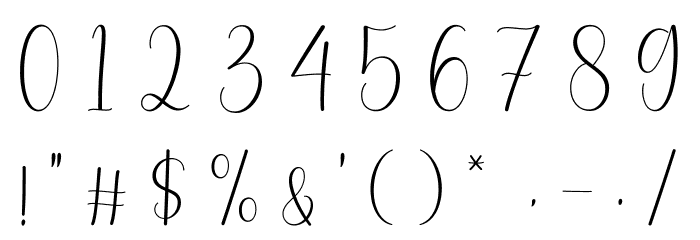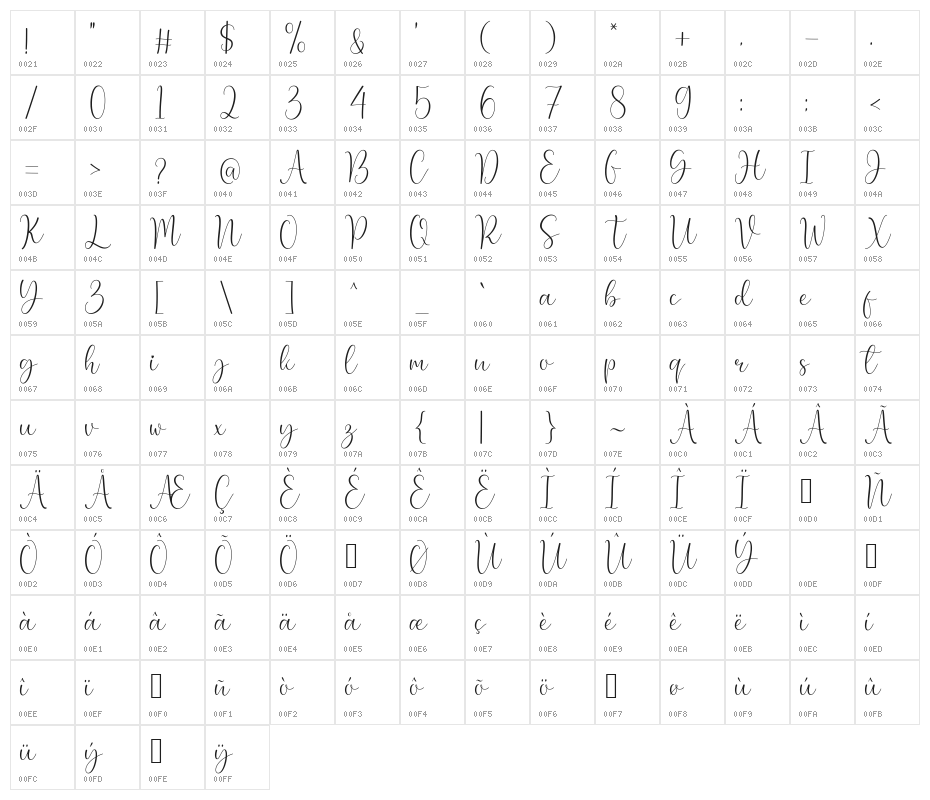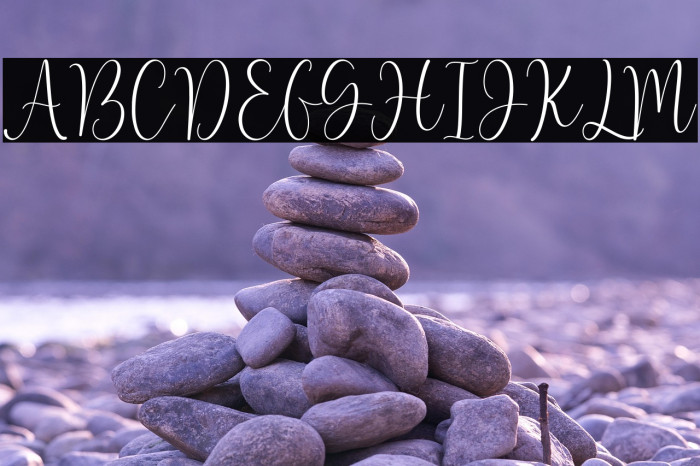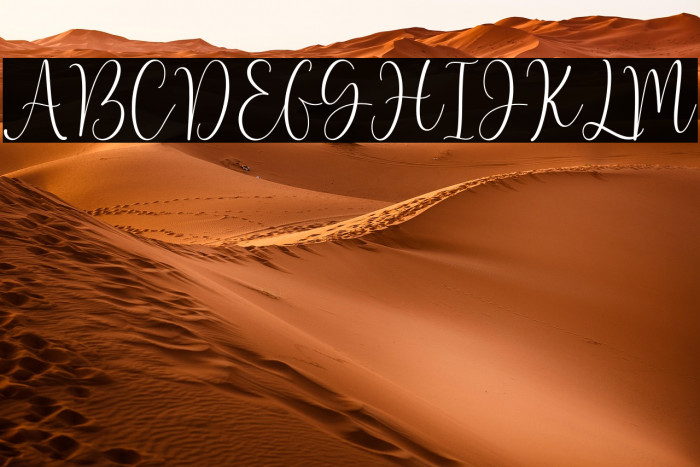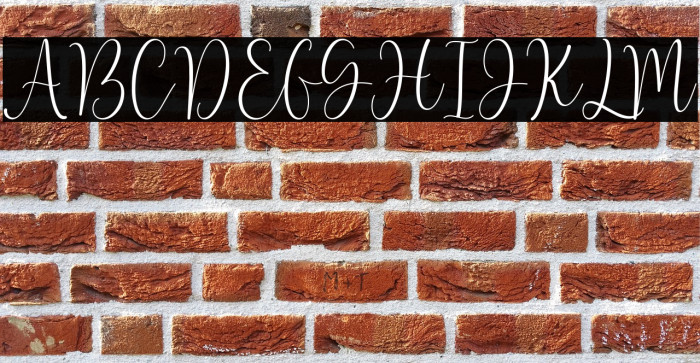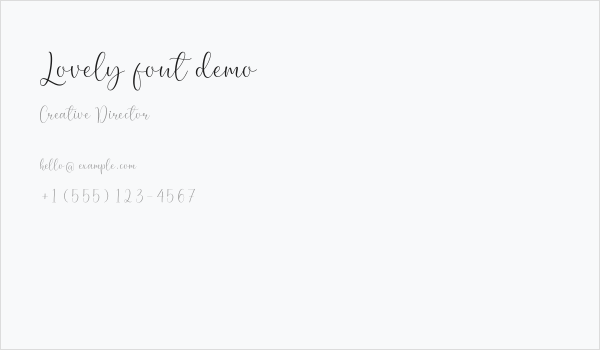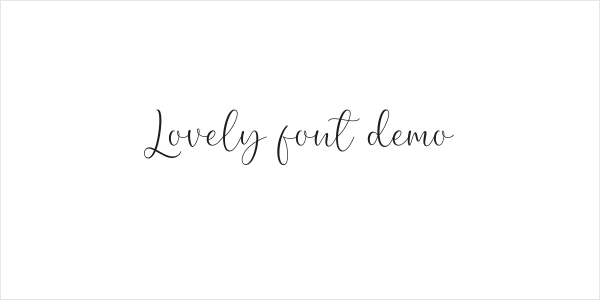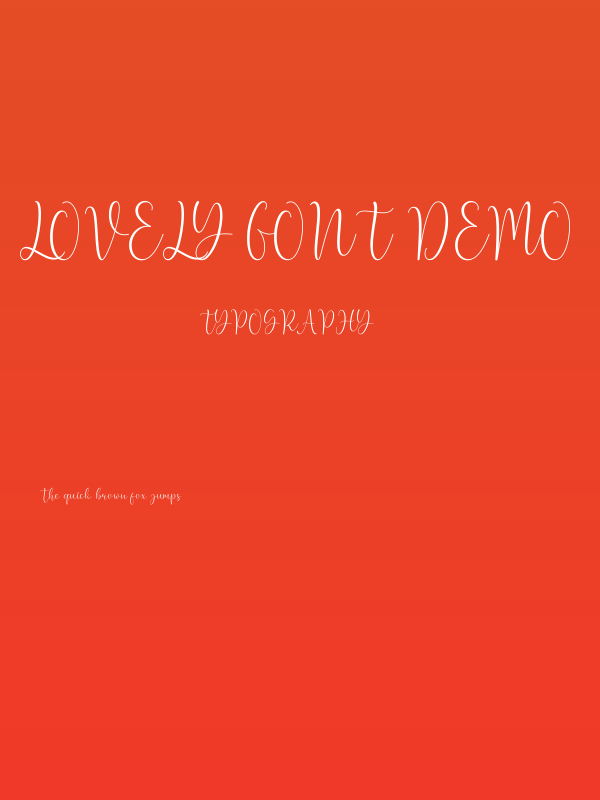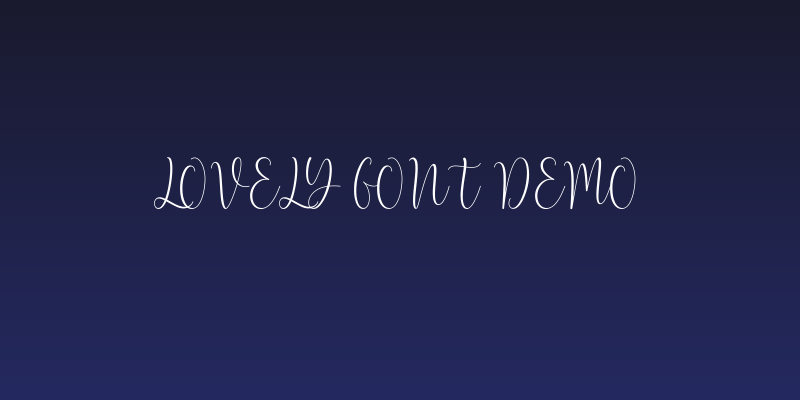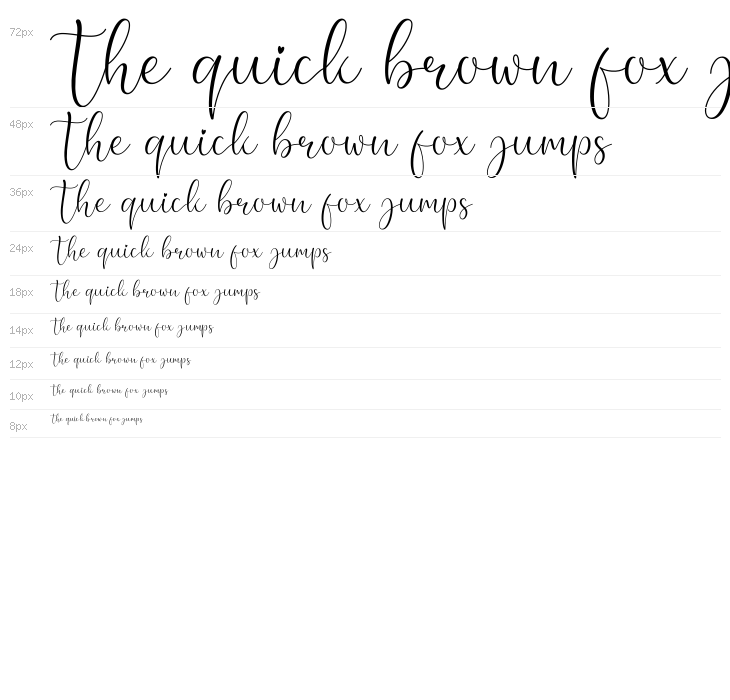
Lovely font demo Font
Lovely font demo Description
This font features an elegant and flowing script style, characterized by its smooth, cursive letterforms that exude a sense of sophistication and grace. The uppercase letters are tall and slender, with delicate loops and swashes that add a touch of flair. The lowercase letters maintain a consistent flow, with gentle curves and connections that enhance readability while preserving the font's artistic appeal. Numbers and special characters are designed to complement the overall aesthetic, maintaining the same fluidity and elegance. This font is perfect for projects that require a personal, handwritten touch, such as invitations, greeting cards, and branding materials.
| Use Case | Headlines, Invitations, Logos |
| Proposed Projects | Ideal for wedding invitations, greeting cards, personal branding, and elegant logos. |